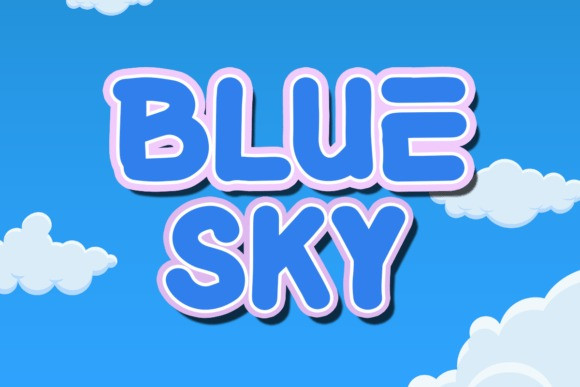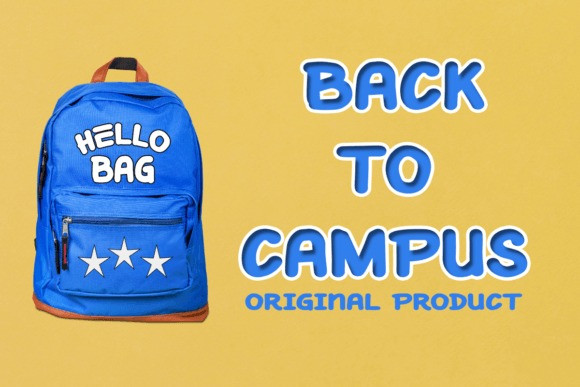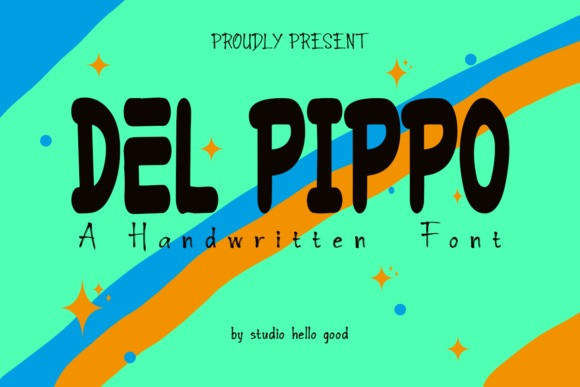
Del Pippo Font
Del Pippo Font – a versatile and captivating font that brings a burst of energy to kids’ books, comics, and beyond! With its playful curves and dynamic strokes, Del Pippo is the perfect blend of fun and readability, making it an ideal choice for children’s literature, comic books, and adventurous tales.
This font exudes a sense of whimsy and excitement, inviting readers of all ages to embark on thrilling adventures and imaginative journeys. Each letter is carefully crafted with bold lines and cheerful shapes, capturing the essence of childhood wonder and creativity.